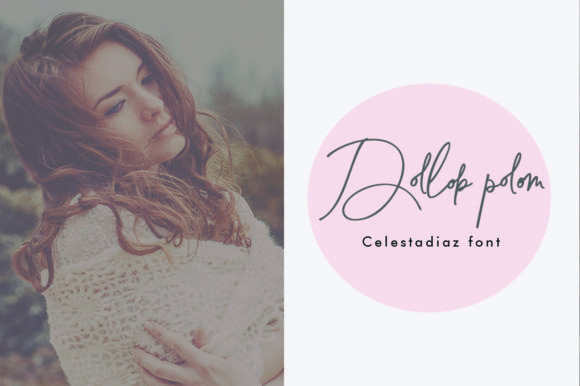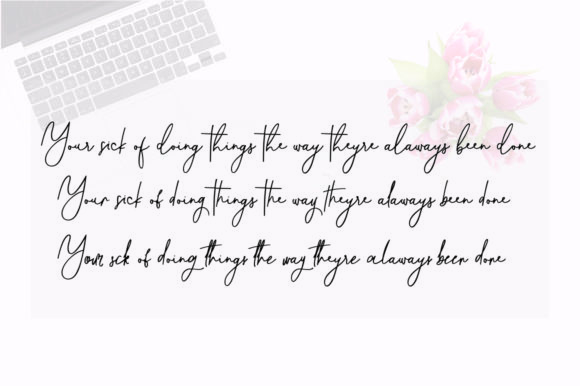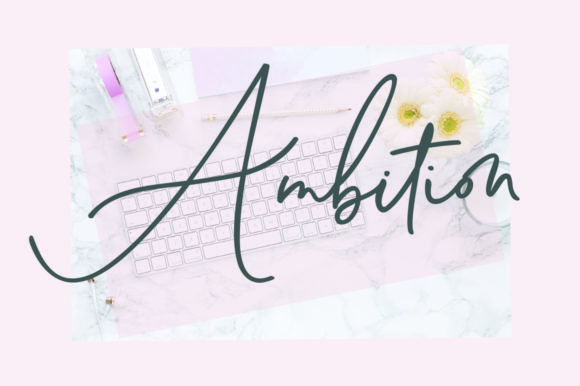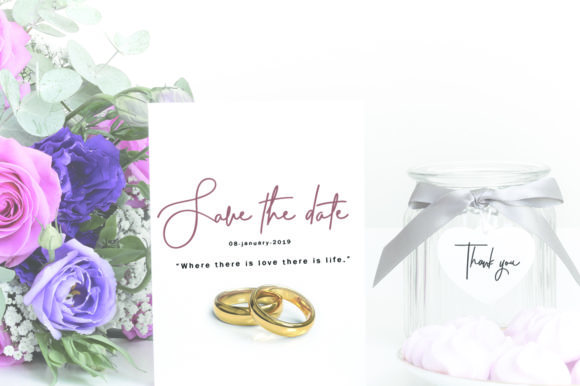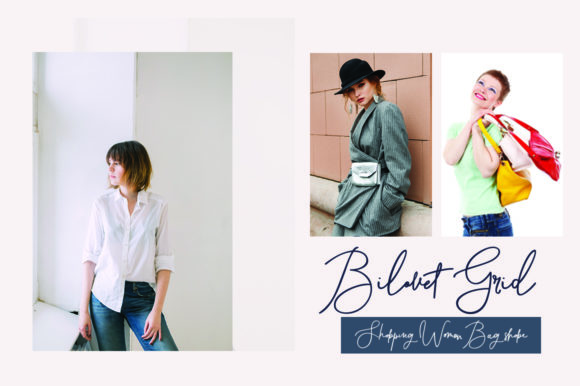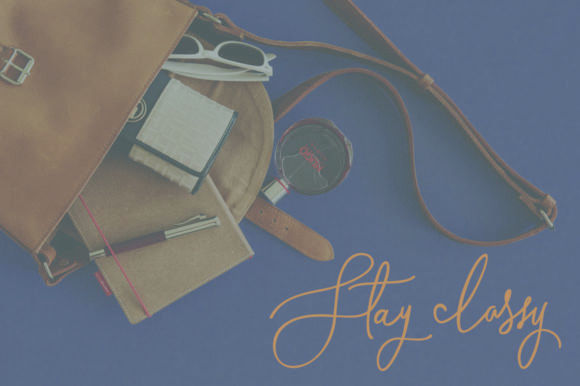
The Perfect Blend of Handwritten Charm and Modern Flair
Have you ever found yourself sitting at your desk, surrounded by scribbled notes and forgotten ideas, yet nothing seems to capture the essence of your creative vision? That’s where the Celestadiaz Font comes in – a modern calligraphy font that brings a touch of handwritten elegance to your designs.
This beautiful font is designed to add a personal touch to your work, making it perfect for logos, branding, and typography projects. With its natural, flowing lines and subtle imperfections, the Celestadiaz Font is sure to bring a unique charm to your designs, setting them apart from the ordinary. Whether you’re a seasoned designer or just starting out, this versatile font is an invaluable addition to your toolkit.
Celestadiaz Font Key Features
- Font Family: Celestadiaz Font is a unique, elegant script font.
- Unique Characteristics: Celestadiaz Font features a flowing, cursive design with subtle flourishes, making it perfect for adding a touch of elegance to designs.
Celestadiaz Font Review
Celestadiaz is a unique and eye-catching font that can add a touch of elegance to any project. ✨ One of the things that stands out about this font is its intricate details and ornate design elements, which make it perfect for titles and headings.
- Beautifully crafted details and flourishes ✨
- Perfect for titles and headings
- Unique and elegant design
However, there are some limitations to consider. ⚠️ The font can be quite dense and may be difficult to read in smaller sizes or for extended periods of time. Additionally, the font’s complexity may make it challenging to pair with other fonts or design elements.
- May be difficult to read in smaller sizes or for extended periods
- Can be challenging to pair with other fonts or design elements
Overall, Celestadiaz is a beautiful font that can add a touch of sophistication to any project. While it may have some limitations, it’s definitely worth considering for titles, headings, and other design elements where a unique and elegant look is desired.
Getting the Most Out of Celestadiaz Font
Use the Celestadiaz font for creative and elegant designs, such as:
- Typography-based art and graphics
Experiment with different font sizes, colors, and styles to create unique and eye-catching designs.
Alternatives to Celestadiaz Font
The Great Vibes Font is a beautiful, elegant script font perfect for titles, headings, and quotes. It’s ideal for creating a sophisticated and luxurious look. When to use: For wedding invitations, luxury branding, and high-end packaging. Comparison: Great Vibes Font is more elegant and refined compared to Celestadiaz Font, with a more flowing and cursive style.
Carolyna Pro is a modern, elegant script font designed for titles, headings, and body text. It’s perfect for creating a clean and sophisticated look. When to use: For branding, packaging, and editorial design. Comparison: Carolyna Pro Font is more modern and clean compared to Celestadiaz Font, with a more subtle and understated style.
Alex Brush is a beautiful, handwritten script font perfect for titles, headings, and quotes. It’s ideal for creating a personal and creative look. When to use: For personal branding, stationery, and event invitations. Comparison: Alex Brush Font is more personal and creative compared to Celestadiaz Font, with a more expressive and handwritten style.